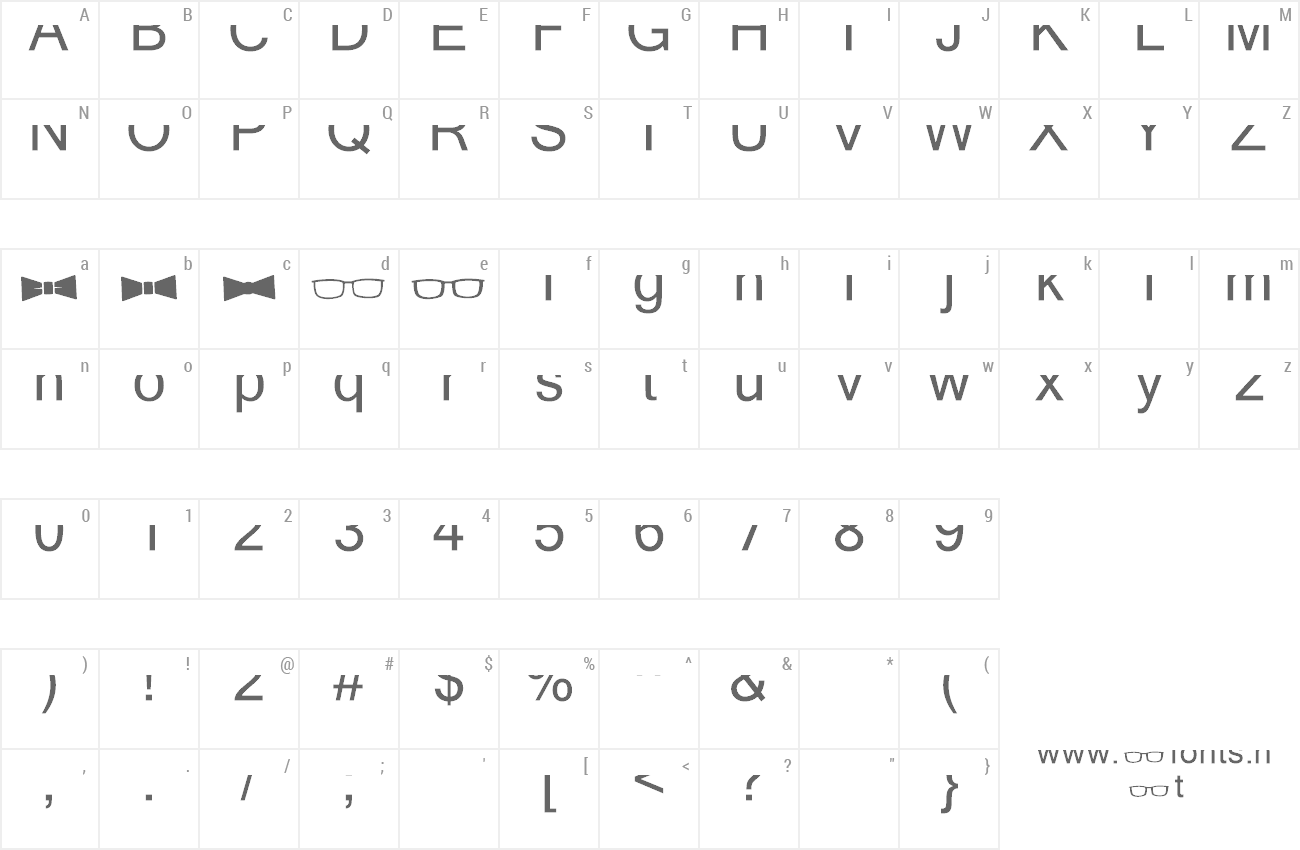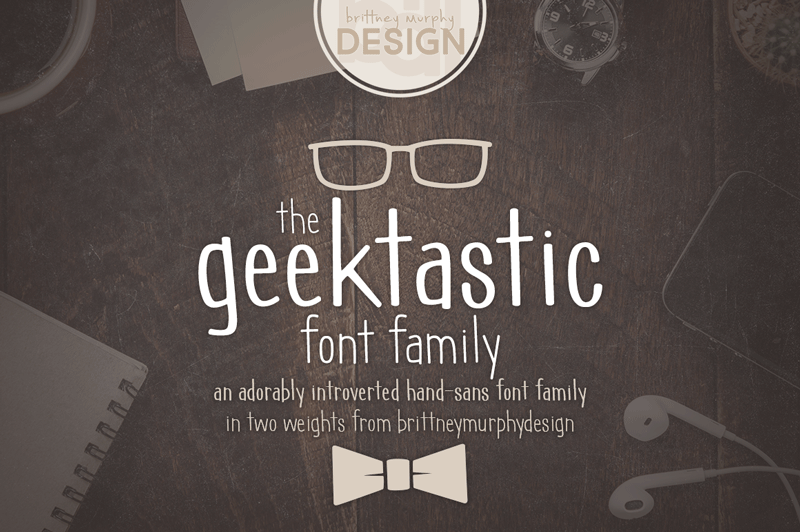
Geektastic is a tall and lanky, adorably introverted hand-sans in two weights- regular and skinny. It’s quirky, yet understated, and even comes with an ‘accessories font’ with five characters- 3 bowties and two sets of glasses. Includes 366 characters, with lots of accented letters. Free for personal use only. For commercial use, please purchase a license: http://brittneymurphydesign.com/downloads/geektastic-font-family/ |